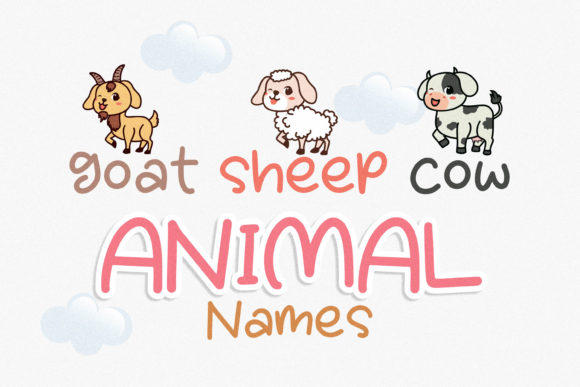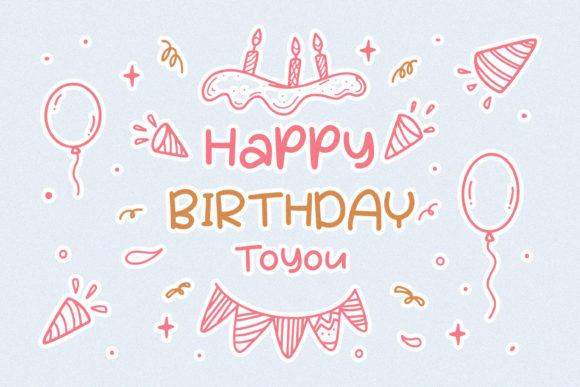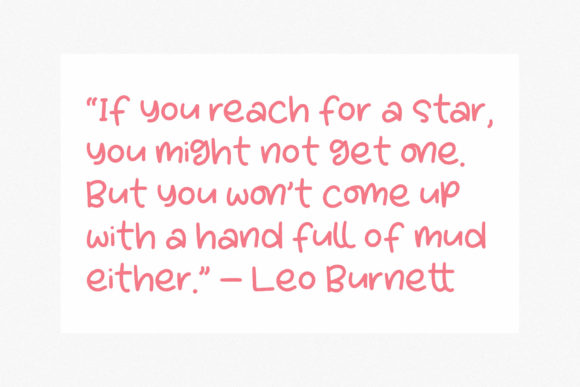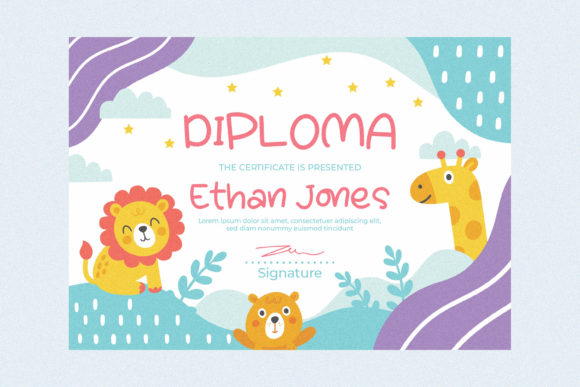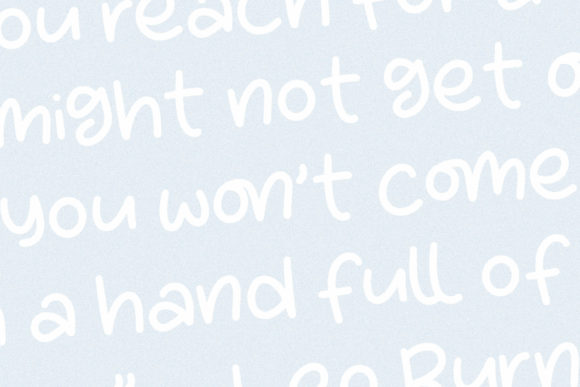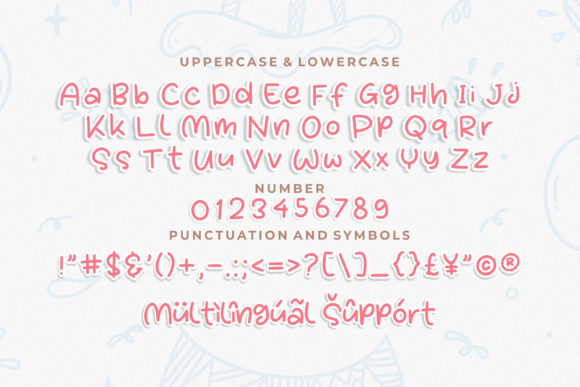
Copher Quirky Font: Add a Playful Touch to Your Designs
Are you looking for a font that can add a dash of playfulness and whimsy to your designs? Look no further than Copher Quirky Font. This premium font is perfect for designers and crafters who want to create engaging and eye-catching content for children and adults alike. In this article, we’ll explore the features and benefits of Copher Quirky Font and how it can elevate your designs.
What is Copher Quirky Font?
Copher Quirky Font is a unique and quirky font that boasts a playful touch. Its distinctive design makes it an excellent choice for a wide range of applications, from children’s books and stickers to logos, posters, and greeting cards. The font’s playful and carefree vibe is sure to capture the attention of your audience and leave a lasting impression.
Key Features of Copher Quirky Font
• Playful and Whimsical Design: Copher Quirky Font features a one-of-a-kind design that is both playful and whimsical. Its quirky style is perfect for designs that require a dash of fun and personality.
• High-Quality and Premium: As a premium font, Copher Quirky Font is designed to deliver high-quality results. Its clear and crisp lines ensure that your designs look professional and polished.
• Versatile and Adaptable: This font is incredibly versatile and can be used for a wide range of applications, including children’s books, stickers, logos, posters, quotes, greeting cards, invitation cards, name cards, book covers, and more.
Use Cases for Copher Quirky Font
Copher Quirky Font is an excellent choice for designers and crafters who work on various projects. Here are some use cases where this font can shine:
• Children’s Books: Add a playful touch to your children’s books with Copher Quirky Font. Its whimsical design will delight young readers and make your book stand out.
• Stickers and Labels: Create eye-catching stickers and labels with Copher Quirky Font. Its bold and playful design is sure to grab attention.
• Logos and Branding: Use Copher Quirky Font to create unique and memorable logos for your brand. Its quirky style will help your brand stand out.
• Posters and Flyers: Design engaging posters and flyers with Copher Quirky Font. Its clear and readable design ensures that your message gets across.
• Greeting Cards and Invitations: Add a personal touch to your greeting cards and invitations with Copher Quirky Font. Its playful design will make your cards and invitations special.
Benefits of Using Copher Quirky Font
By using Copher Quirky Font, designers and crafters can enjoy several benefits, including:
• Unique and Distinctive Designs: Copher Quirky Font helps you create designs that stand out from the crowd. Its quirky style ensures that your designs are memorable and engaging.
• Time-Saving: With Copher Quirky Font, you can save time and effort in creating designs from scratch. Its high-quality design ensures that your designs look professional and polished.
• Flexibility and Adaptability: This font is incredibly versatile and can be used for various applications. Its adaptability ensures that you can use it for different projects and designs.
Copher Quirky Font is an excellent choice for designers and crafters who want to add a playful touch to their designs. Its unique and quirky design makes it perfect for a wide range of applications, from children’s books and stickers to logos, posters, and greeting cards. With its high-quality and premium design, Copher Quirky Font is sure to elevate your designs and make them stand out. So why wait? Get Copher Quirky Font today and start creating engaging and eye-catching designs!